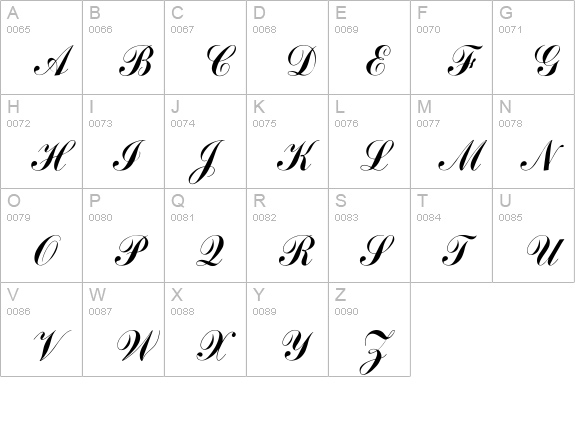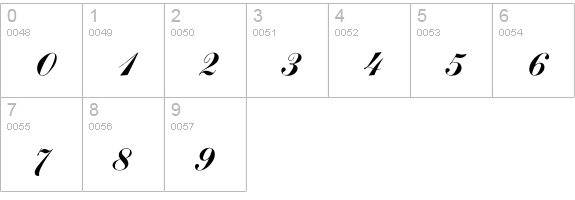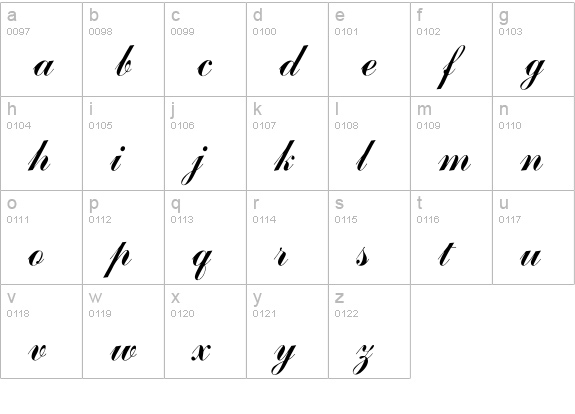
Arenski Font Details
Introducing Arenski font - a modern and sleek typeface that exudes elegance and sophistication. With its clean lines and contemporary design, Arenski font is perfect for a wide range of projects, from branding to editorial design. This versatile font features a unique blend of classic and modern elements, making it suitable for both formal and casual settings. What sets Arenski font apart is not only its visual appeal but also its accessibility. This font is available for free download at FontsMarket.com, allowing designers and creatives to easily access and use it in their projects without any cost. Whether you're working on a logo, website, or print design, Arenski font will elevate your work and give it a polished and professional look. With its timeless aesthetic and effortless charm, Arenski font is sure to become a staple in your font library. Download it for free today and see how it can enhance your next design project.